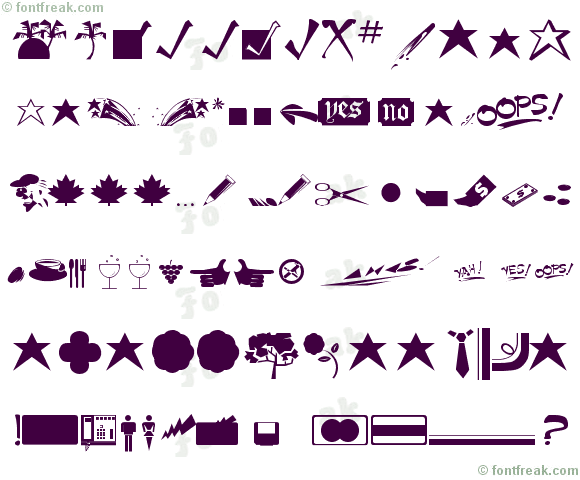
MiniPics
MiniPics is a delightful decorative font that offers a unique twist on traditional typography. This font, categorized as a dingbat, features an array of whimsical symbols and icons, making it a versatile choice for various creative projects. Characterized by its playful and imaginative designs, MiniPics brings a sense of fun and creativity to any design, with each character showcasing a distinct stroke weight that maintains a balanced visual appeal.
The visual characteristics of the MiniPics font are engaging, with each icon designed to be bold yet simple. The uniform spacing between symbols allows for seamless integration into any layout, ensuring that it captures the viewer's attention without overwhelming the overall design. The absence of intricate details gives the font a clean look, while still retaining its decorative essence, making it ideal for both digital and print applications.
MiniPics is perfect for a variety of use cases, including crafting eye-catching wedding invitations, designing vibrant party flyers, enhancing children's book illustrations, and creating engaging social media graphics. Its playful nature makes it particularly appealing to graphic designers, small business owners, and content creators who are looking to add a touch of creativity to their work.
What truly sets the MiniPics font apart is its ability to evoke a sense of joy and playfulness. Unlike standard fonts, MiniPics invites users to explore their creativity, making it a fantastic choice for projects that aim to capture attention and inspire. With the MiniPics font free download available, designers can easily incorporate this charming typeface into their collections and elevate their projects with unique, decorative elements that resonate with audiences.